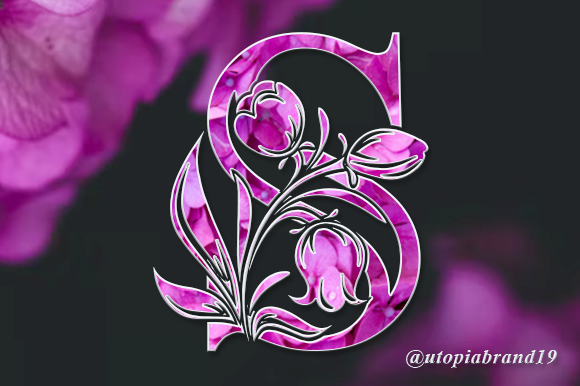
Hello Spring Monogram Font: Elevate Your Designs with Delicate Luxury
As the seasons change and spring arrives, it’s the perfect time to refresh your design projects with a touch of elegance and sophistication. Introducing the Hello Spring Monogram Font, a delicate and highly detailed decorative font that is sure to add a luxury spark to any design project you wish to create. In this article, we’ll dive into the features, benefits, and uses of this beautiful font, and explore how it can elevate your designs to the next level.
Key Features of Hello Spring Monogram Font
- Delicate and Detailed Design: Hello Spring Monogram Font boasts a intricate and ornate design, with characters that dance along the baseline, creating a sense of movement and fluidity.
- Highly Versatile: This font is perfect for a wide range of design projects, from luxury branding and packaging to wedding invitations, stationery, and more.
- Monogram Style: The font features a beautiful monogram style, making it ideal for creating custom monograms, logos, and initials.
- Elegant and Sophisticated: The Hello Spring Monogram Font exudes elegance and sophistication, adding a touch of luxury to any design project.
Benefits of Using Hello Spring Monogram Font in Your Designs
Using the Hello Spring Monogram Font in your designs can have a significant impact on the overall aesthetic and effectiveness of your project. Here are some benefits of using this font:
- Adds Luxury and Sophistication: The font’s elegant and intricate design adds a touch of luxury and sophistication to any design project, making it perfect for high-end branding and marketing materials.
- Creates Visual Interest: The unique and delicate design of the font creates visual interest and draws the viewer’s attention, making it perfect for headlines, titles, and other prominent design elements.
- Highly Readable: Despite its intricate design, the Hello Spring Monogram Font is highly readable, making it suitable for use in a wide range of design projects, from body text to headings.
- Versatile and Adaptable: The font’s monogram style and elegant design make it highly versatile and adaptable, allowing you to use it in a wide range of design projects and applications.
Design Applications for Hello Spring Monogram Font
The Hello Spring Monogram Font is a highly versatile font that can be used in a wide range of design projects and applications. Here are some ideas to get you started:
- Luxury Branding and Packaging: Use the font to create custom logos, monograms, and packaging materials that exude elegance and sophistication.
- Wedding Invitations and Stationery: Add a touch of luxury and romance to your wedding invitations, stationery, and other paper goods with this beautiful font.
- Signage and Displays: Use the font to create eye-catching signage and displays that showcase your brand’s personality and style.
- Digital Design: Use the font in digital design projects, such as social media graphics, email headers, and website titles, to add a touch of elegance and sophistication.
Pairing Hello Spring Monogram Font with Other Fonts
To get the most out of the Hello Spring Monogram Font, it’s essential to pair it with other fonts that complement its elegant and sophisticated design. Here are some font pairing suggestions:
- Serif Fonts: Pair the Hello Spring Monogram Font with serif fonts, such as Georgia or Times New Roman, for a classic and elegant look.
- Script Fonts: Combine the font with script fonts, such as Pacifico or Great Vibes, for a romantic and whimsical design.
- Sans-Serif Fonts: Pair the font with sans-serif fonts, such as Arial or Helvetica, for a modern and clean design.
Tips and Tricks for Using Hello Spring Monogram Font
Here are some tips and tricks to help you get the most out of the Hello Spring Monogram Font:
- Use it Sparingly: Use the font sparingly to add emphasis and create visual interest in your designs.
- Experiment with Colors: Experiment with different colors and textures to add depth and dimension to your designs.
- Pay Attention to Kerning: Pay attention to kerning and letter spacing to ensure that the font looks elegant and sophisticated.
In conclusion, the Hello Spring Monogram Font is a beautiful and elegant font that can add a touch of luxury and sophistication to any design project. With its delicate and intricate design, highly readable characters, and versatile monogram style, this font is perfect for a wide range of design applications. By following the tips and tricks outlined in this article, you can get the most out of this font and create stunning designs that showcase your brand’s personality and style.